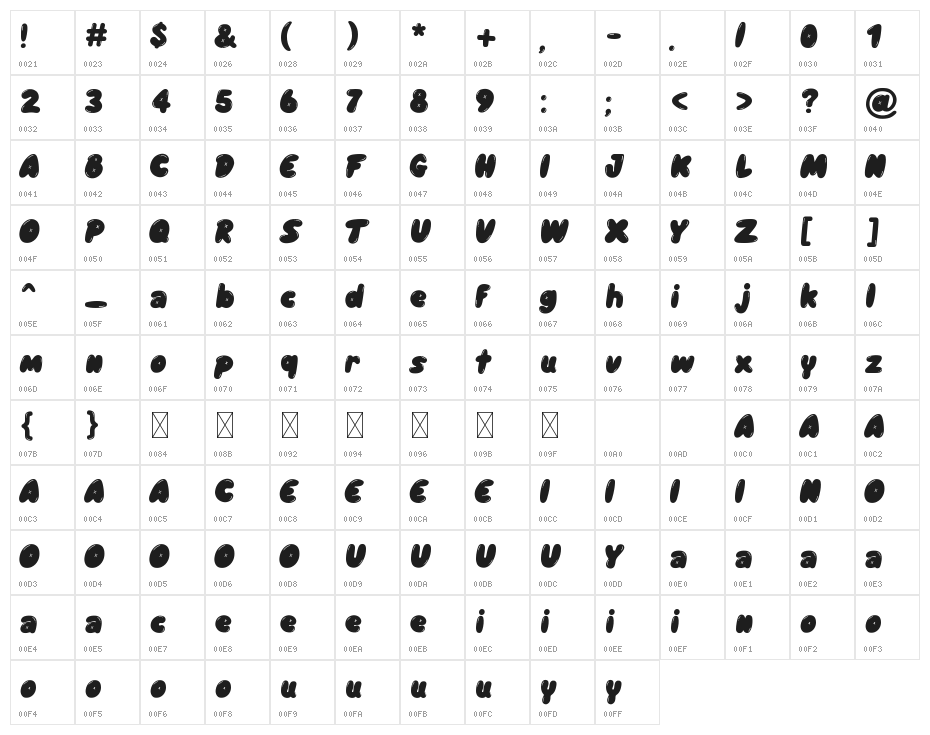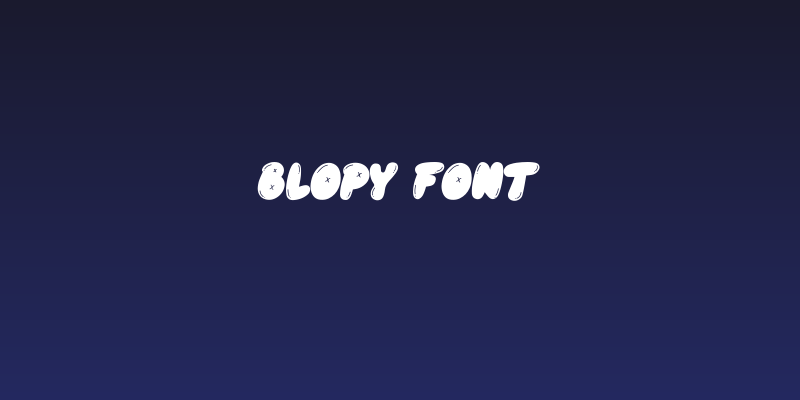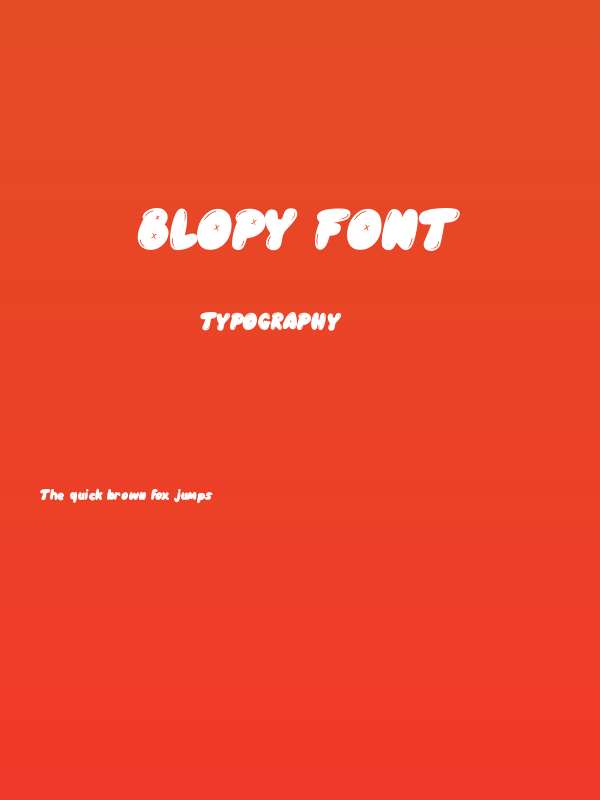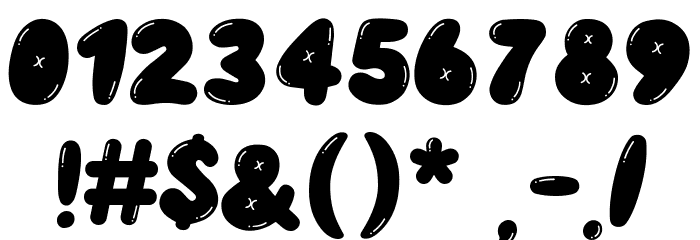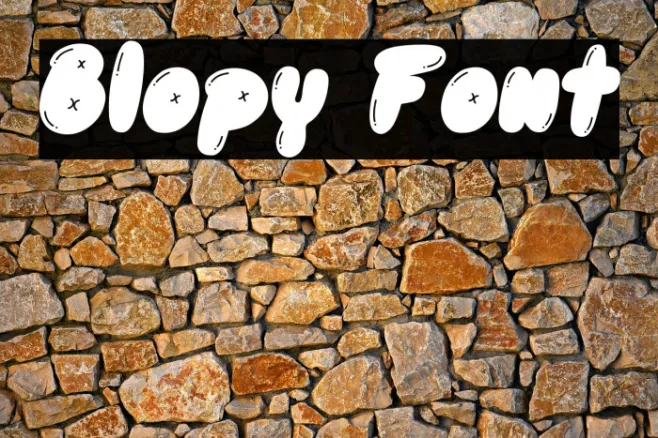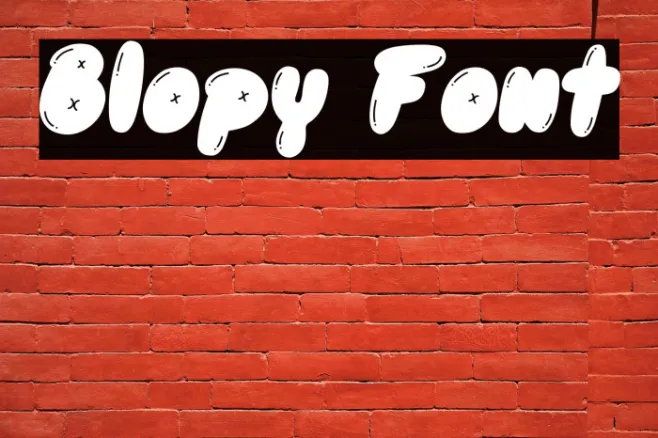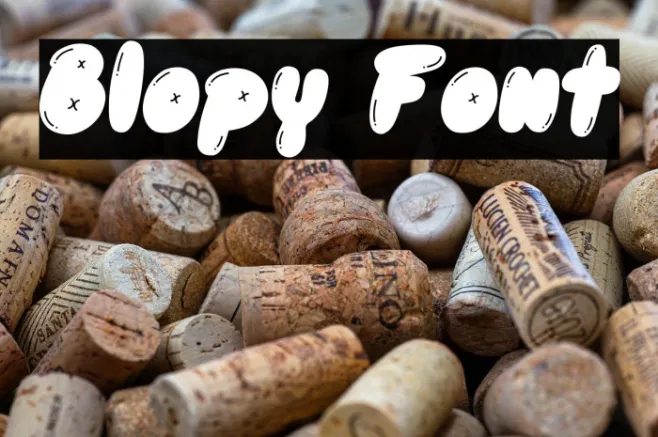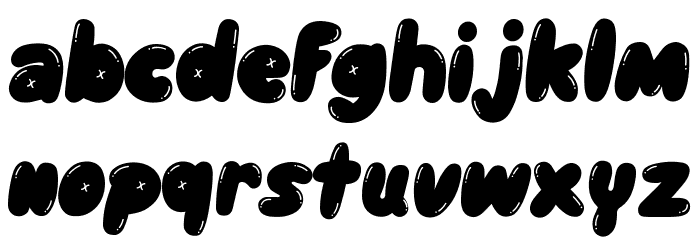
Blopy Font Font
Blopy Font Description
This playful and bold font features a bubbly, rounded style with a unique, whimsical flair. Each character is filled with a solid black color and adorned with small, white star-like accents that add a touch of fun and creativity. The letters are thick and substantial, making them highly visible and impactful. The overall appearance is informal and lively, perfect for projects that aim to convey a sense of joy and playfulness. The font maintains a consistent weight throughout, with smooth curves and a slightly irregular shape that enhances its quirky charm.